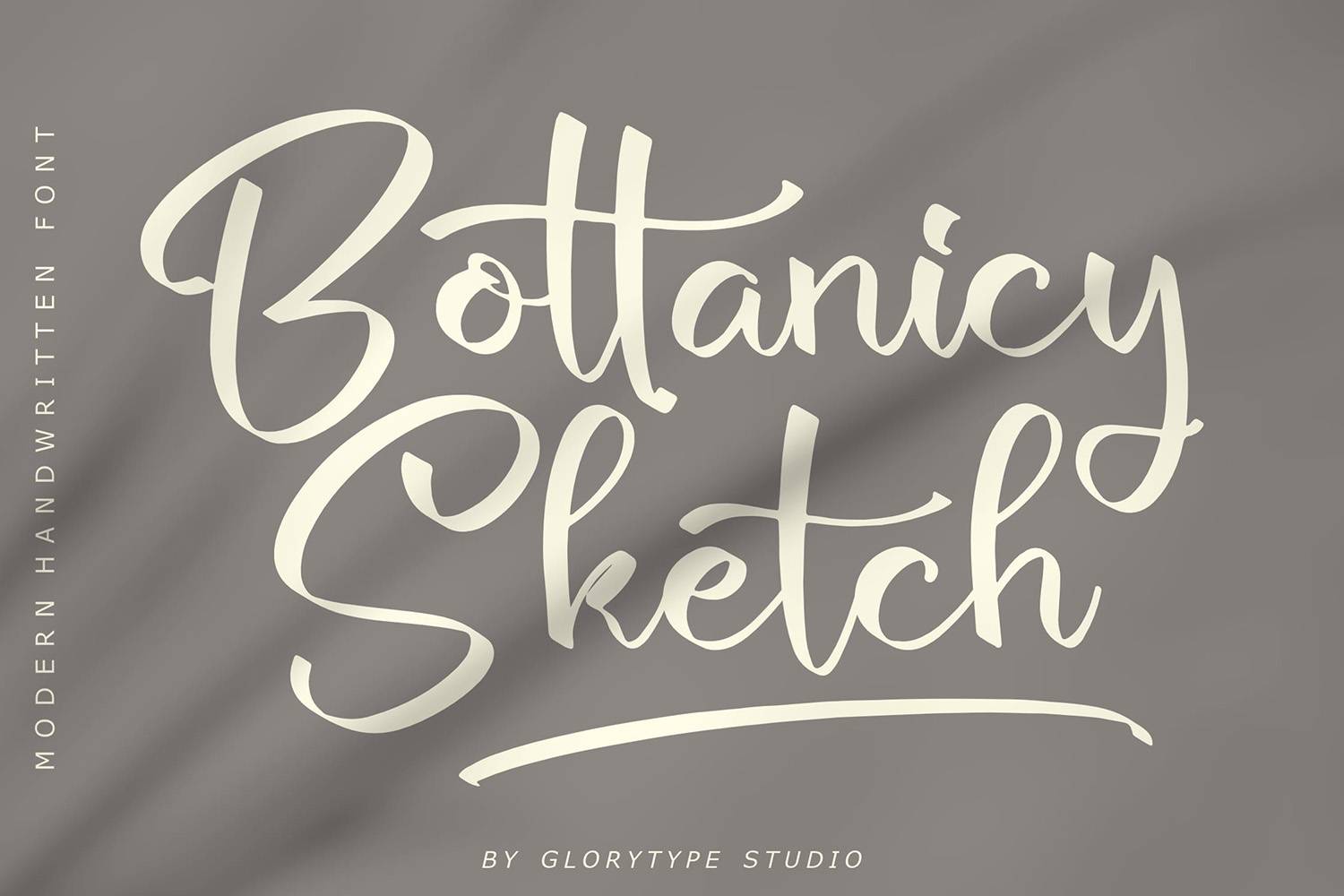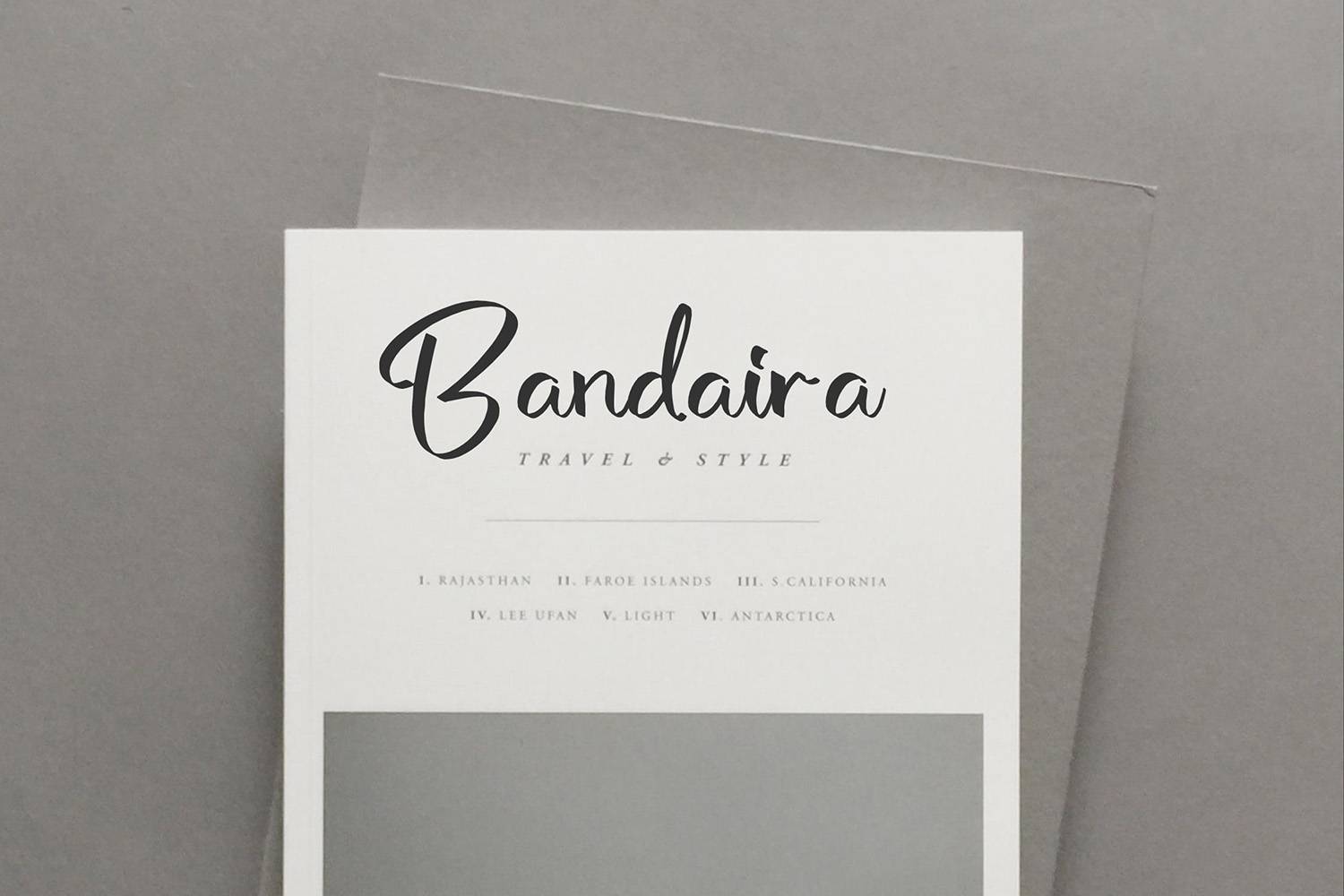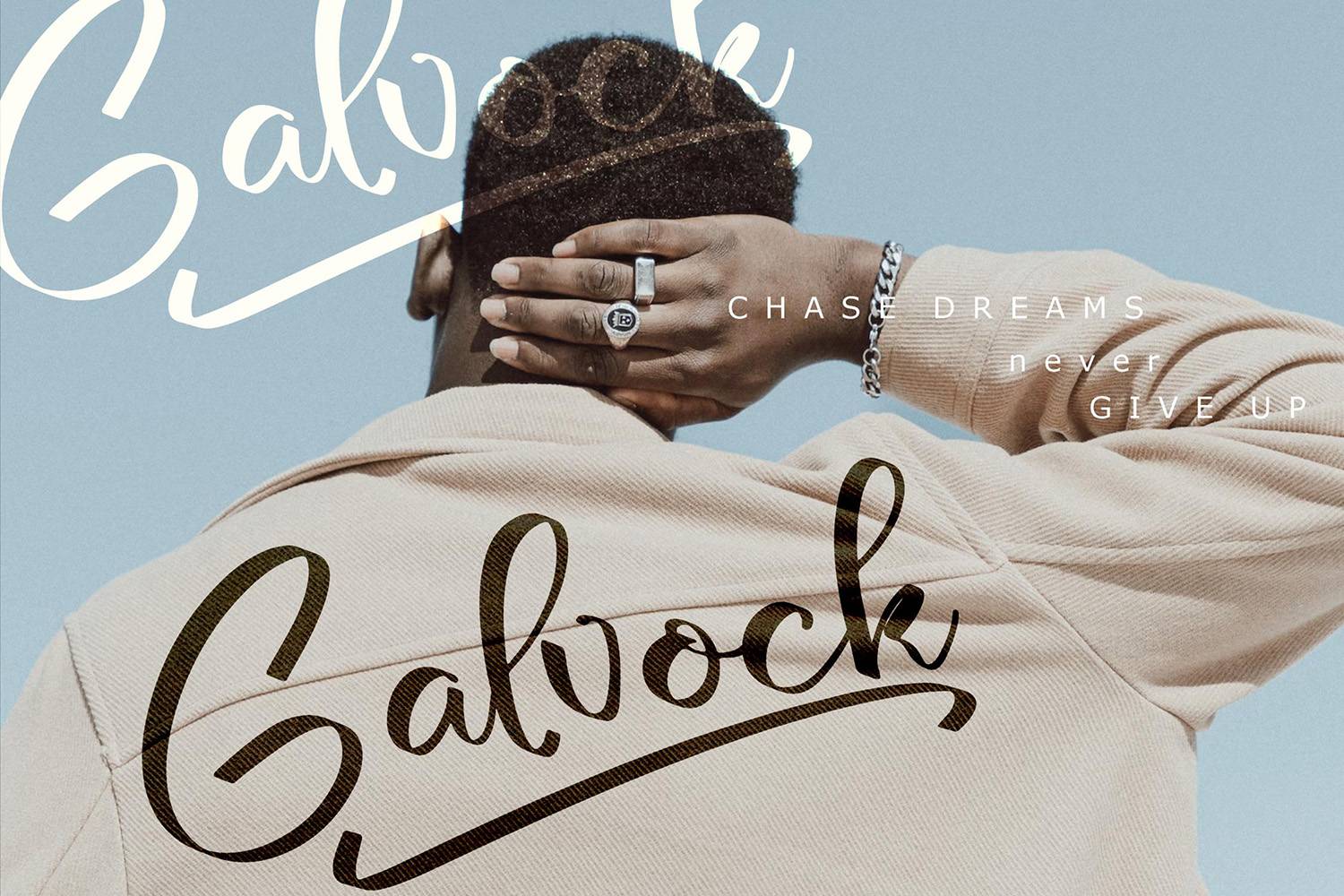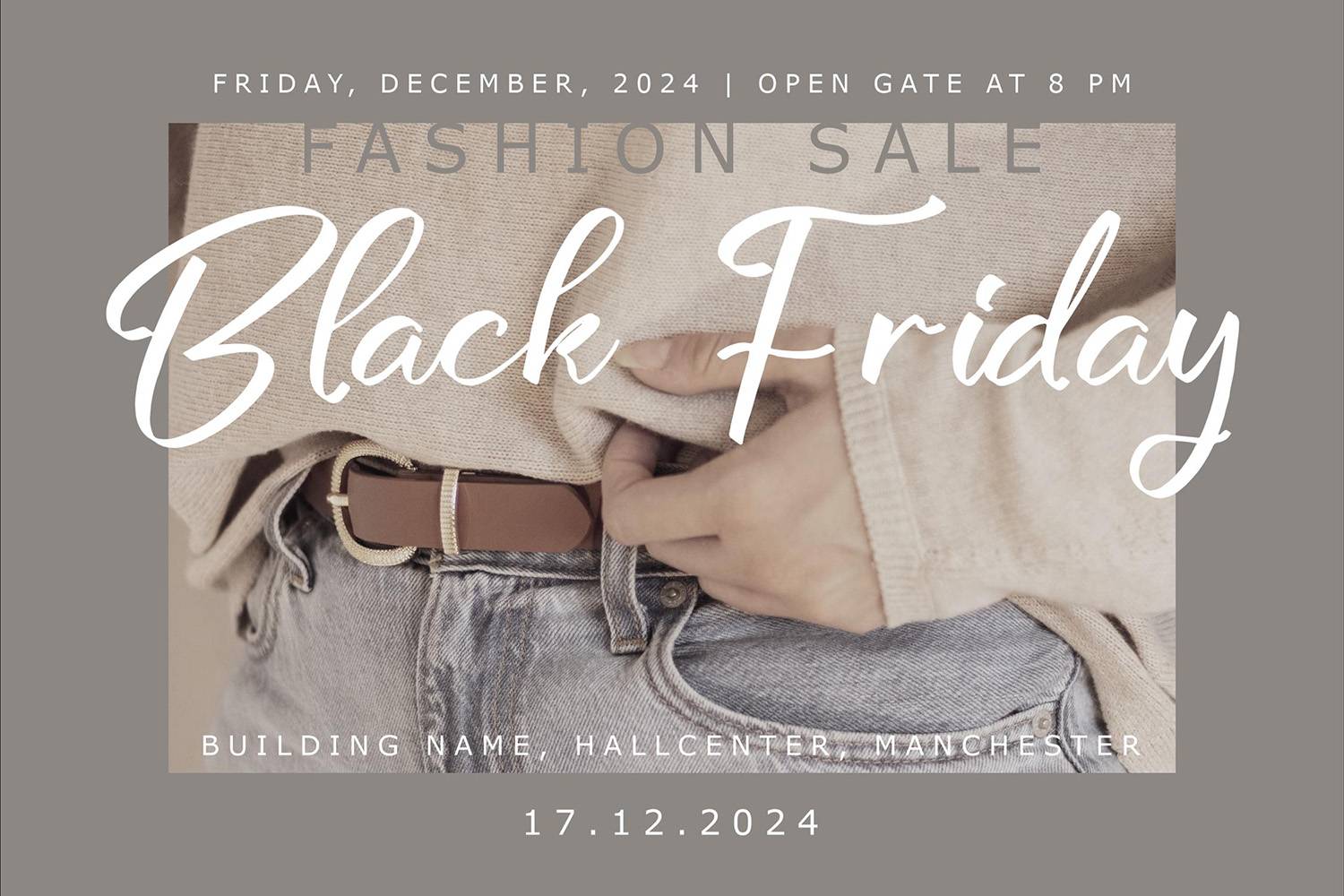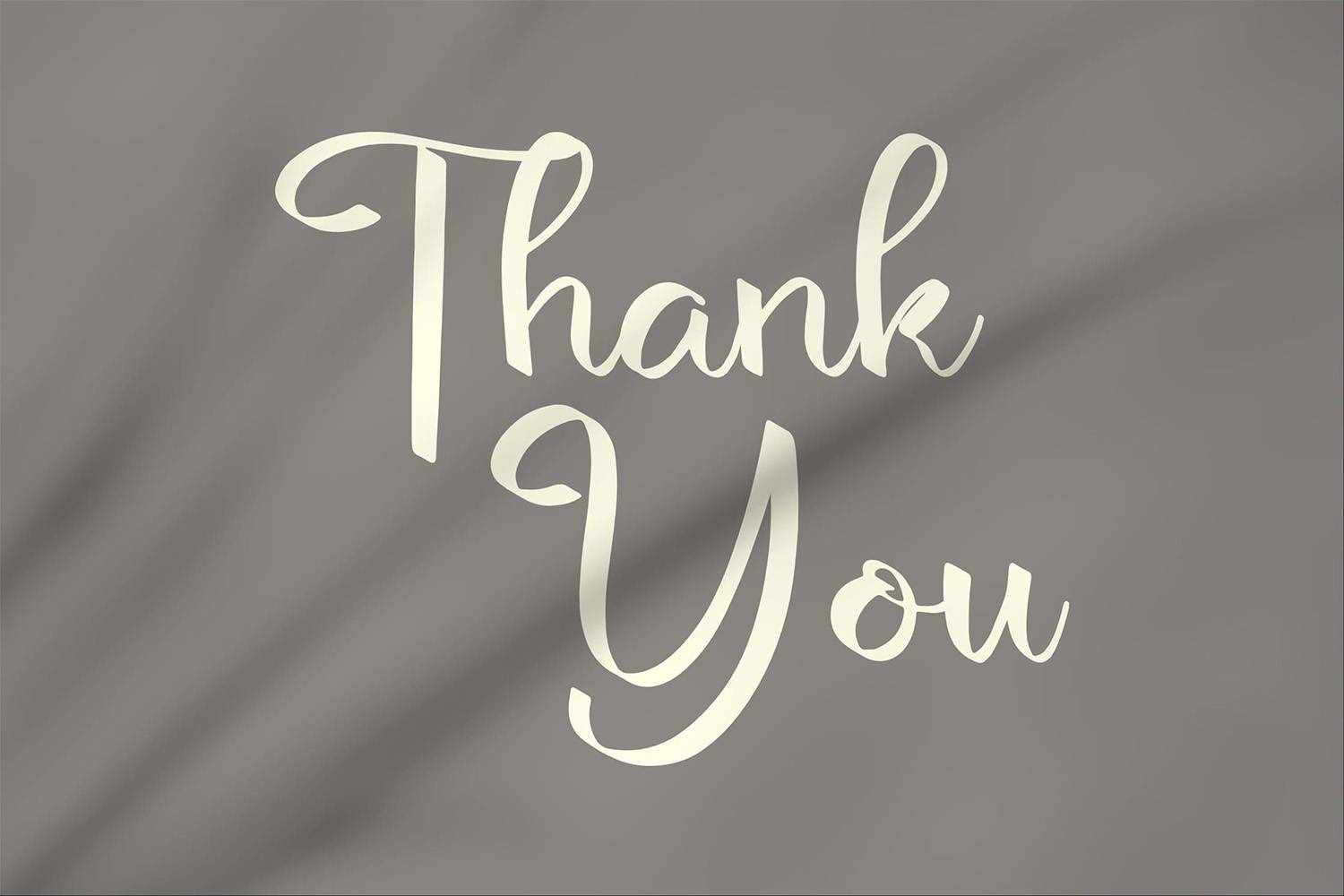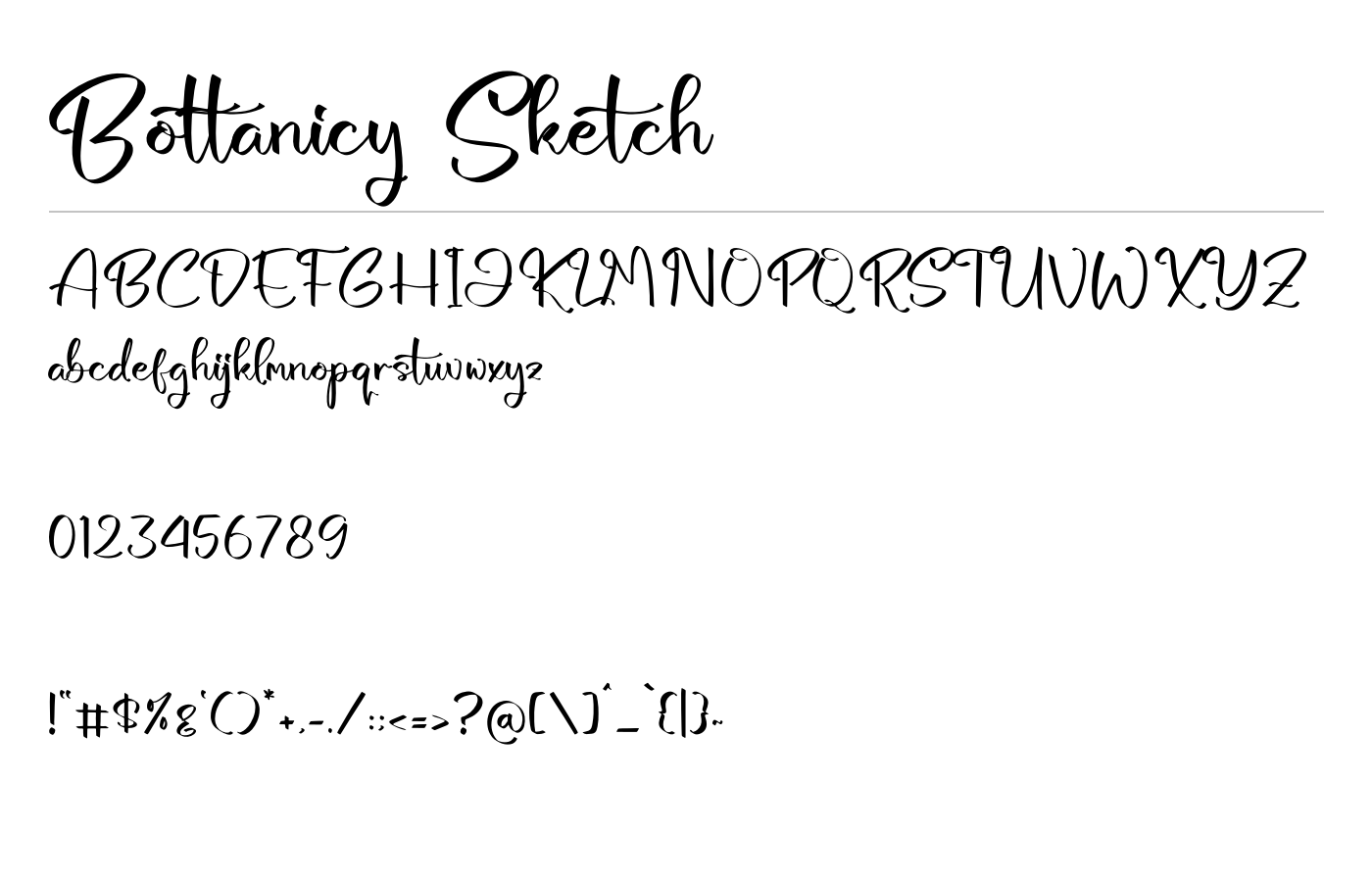
Bottanicy Sketch is a charming script font with a hand-drawn, playful style that features a casual yet elegant flow. It offers a medium weight with varied stroke widths and distinctive letterforms that feel personal and artistic, making it ideal for creative projects, invitations, and branding that seek a warm, friendly, and stylish touch. This font works well in logos, packaging, and headlines where a handcrafted, inviting personality is desired.
Bottanicy Sketch Font
About Bottanicy Sketch Font